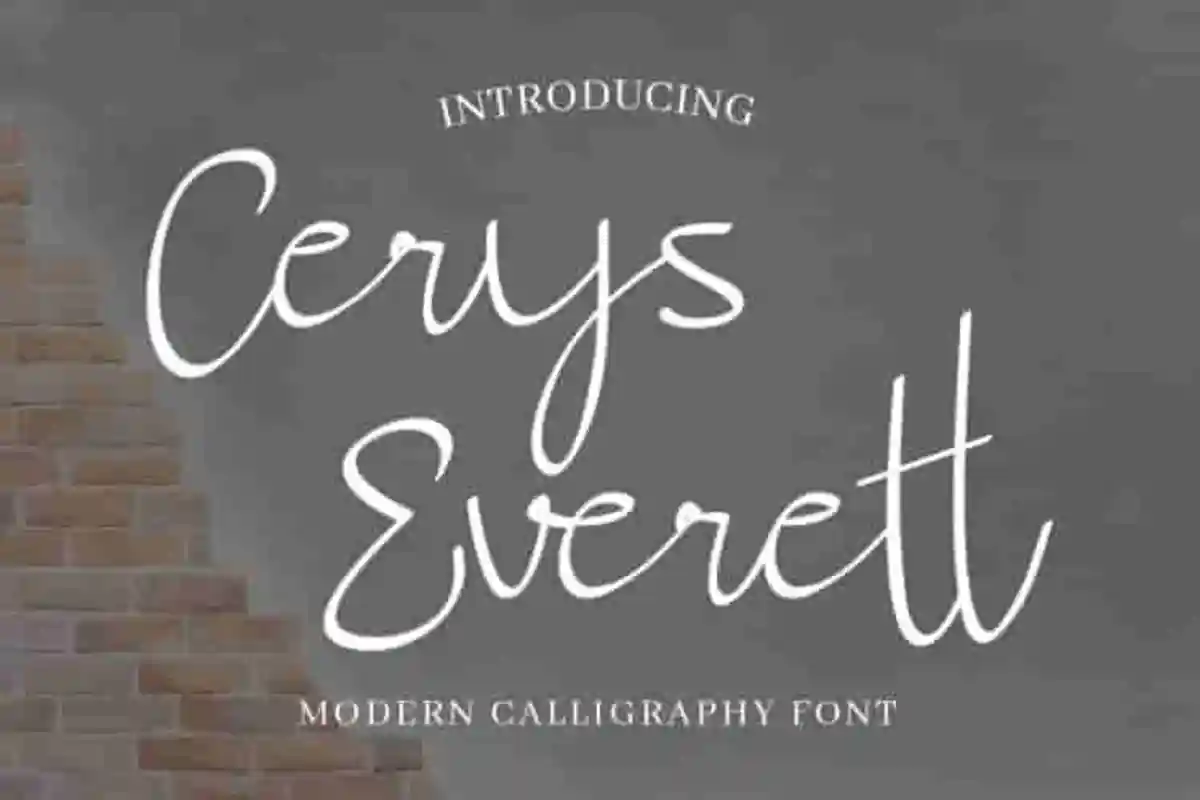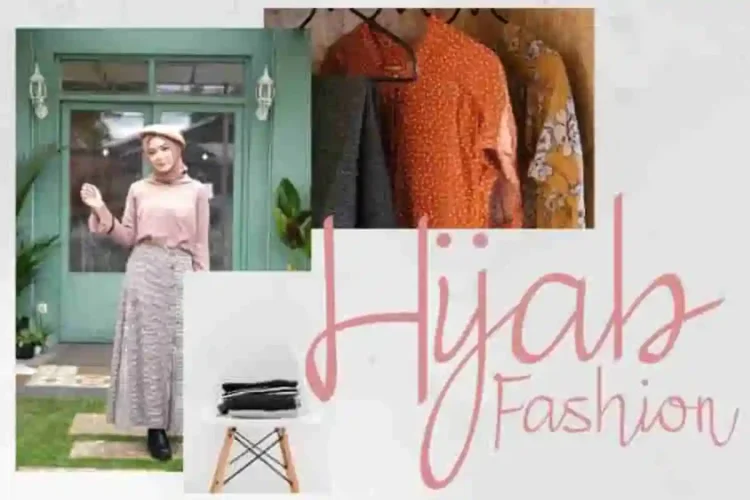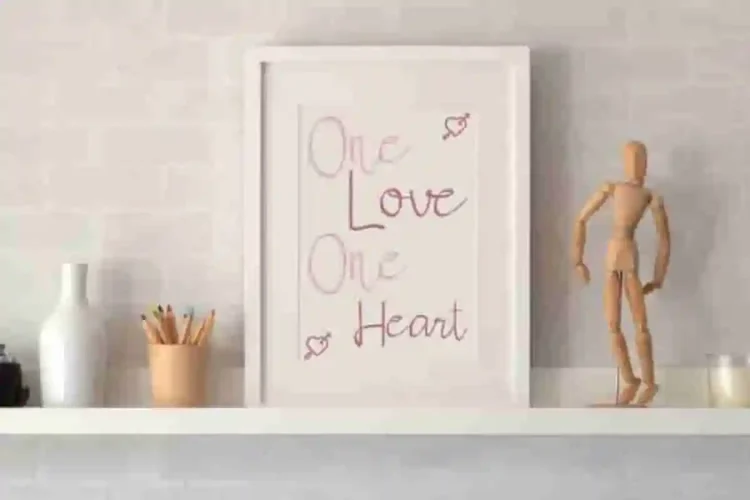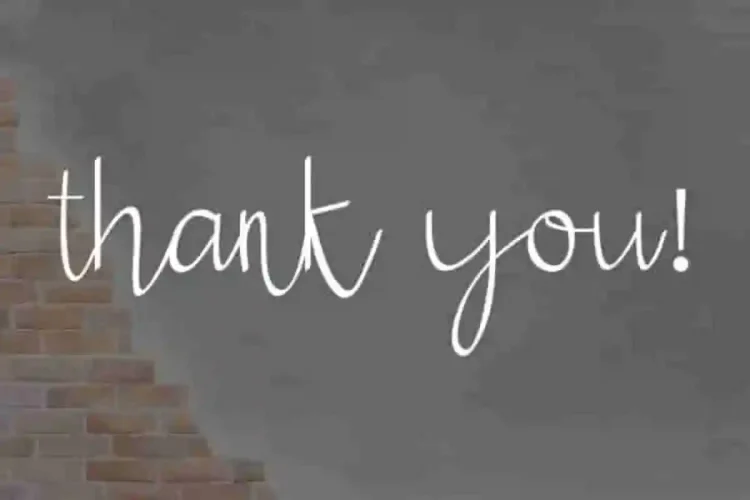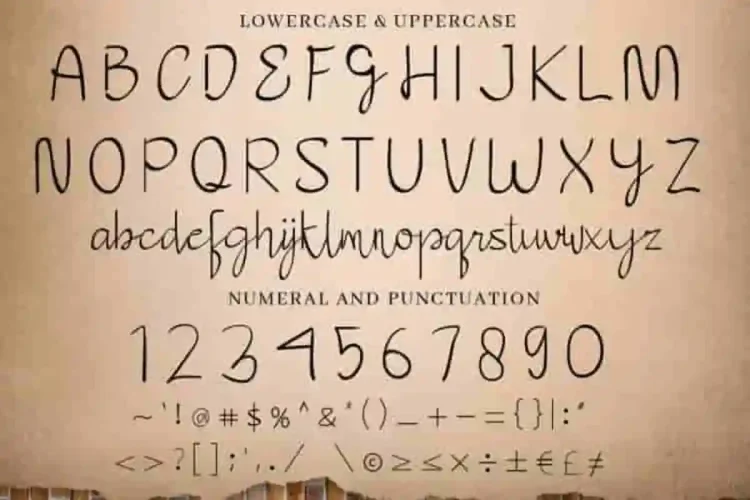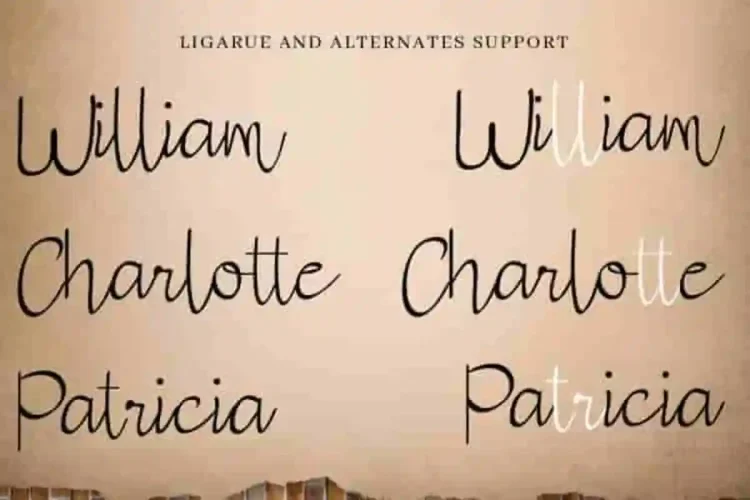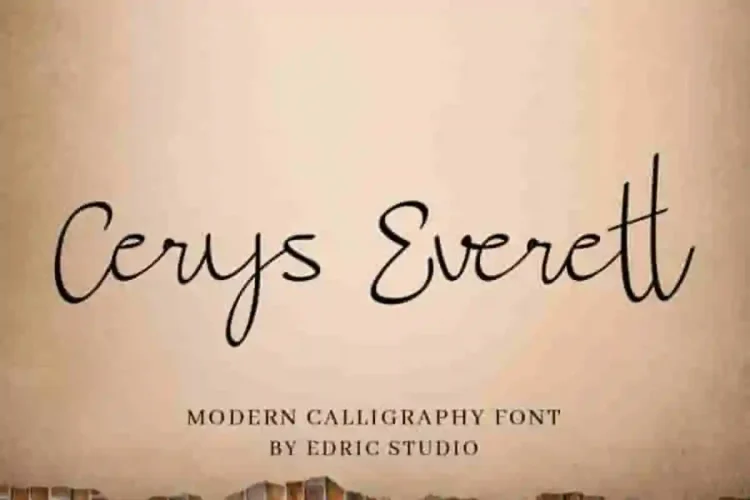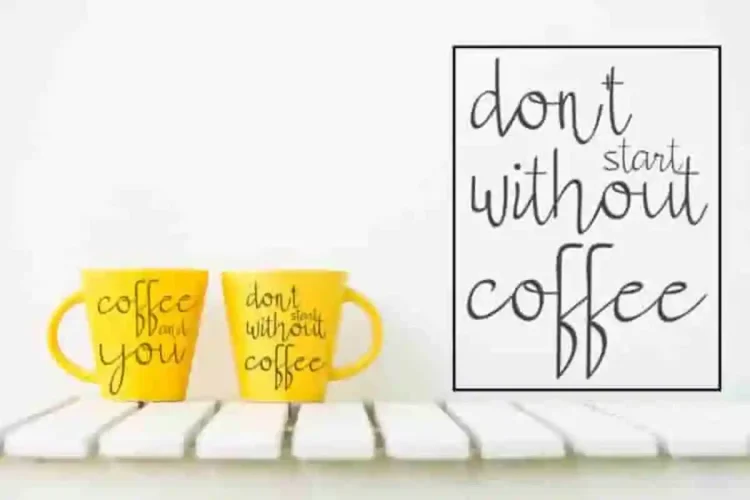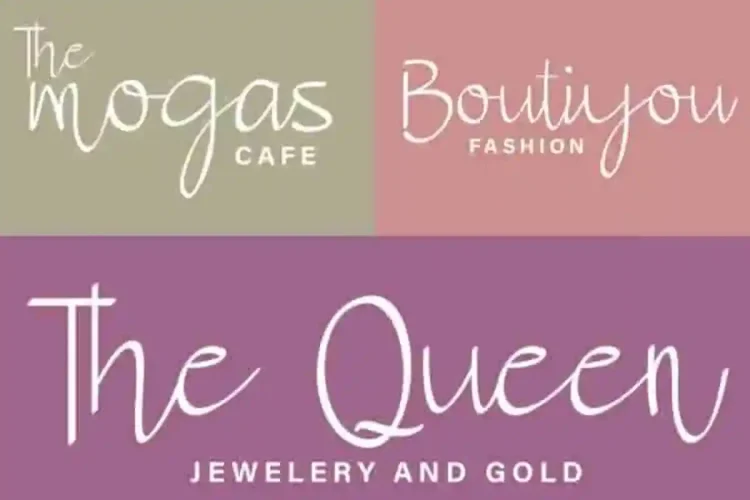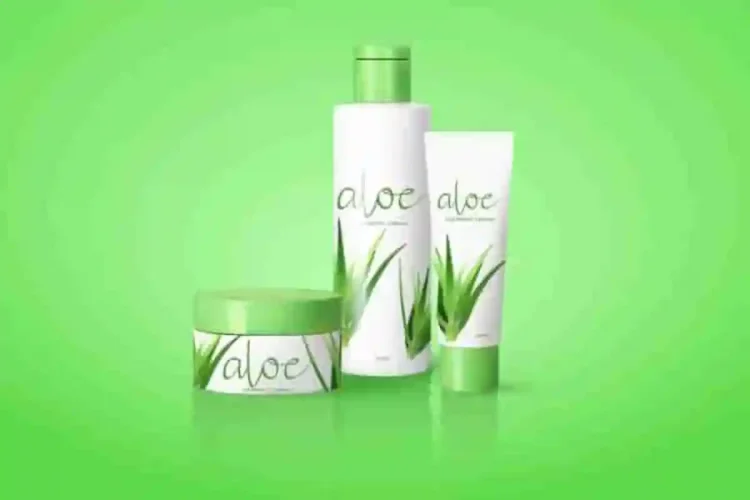
Cerys Everett Calligraphy Font
Today we are going to present one of our latest font. Please welcome : Cerys Everett Calligraphy Font
This new font is a script font, which has a unique calligraphy style. With its style you can explore many industries and designs categories including and not limited to : wedding, events, professionals: lawyer, florist, makeup artist, architect, presenter, singer, etc. With an extendend licenses you can create anything you want : Branding (logo, stationery, bizcard, head letter, folder etc), promotions stuff (flyer, brochure, postcard etc), Digital marketing (Banner, Ads, cover etc), Personal Invitation, Magazine, Website etc.
Cerys Everett Calligraphy Font helps your work stand out from the crowd. With your creativity, there’s no limit using with this font.